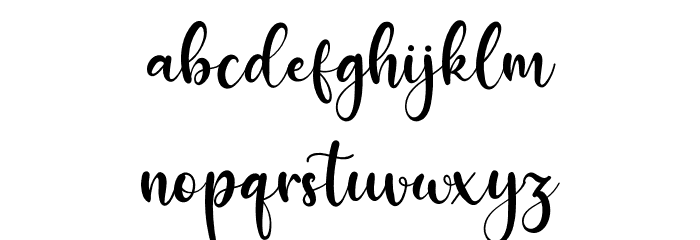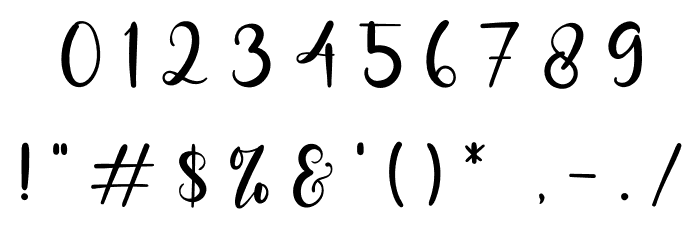
Miss Amalia Font
This font features an elegant and flowing script style, characterized by its smooth, cursive strokes and a sense of fluidity. The uppercase letters are bold and ornate, with a distinctive flair that adds a touch of sophistication. The lowercase letters maintain a consistent style, offering a harmonious blend of curves and loops. Numbers and special characters are designed to complement the overall aesthetic, ensuring versatility across different uses. The font's artistic nature makes it suitable for creative projects, adding a personal and stylish touch to any design.
An elegant, flowing script font with bold, ornate uppercase and smooth lowercase letters.
- Proposed Projects: Ideal for wedding invitations, branding, greeting cards, and elegant packaging designs.
- Category: Script
- Use Case: Logos, Invitations, Branding